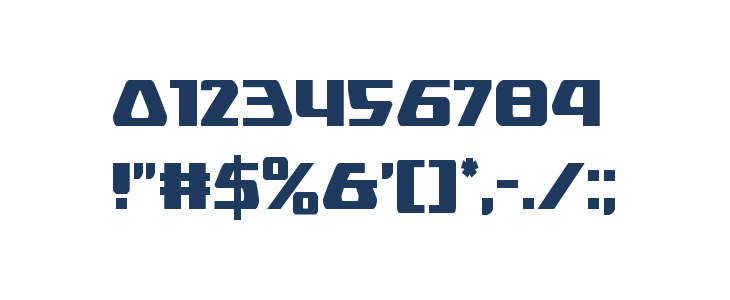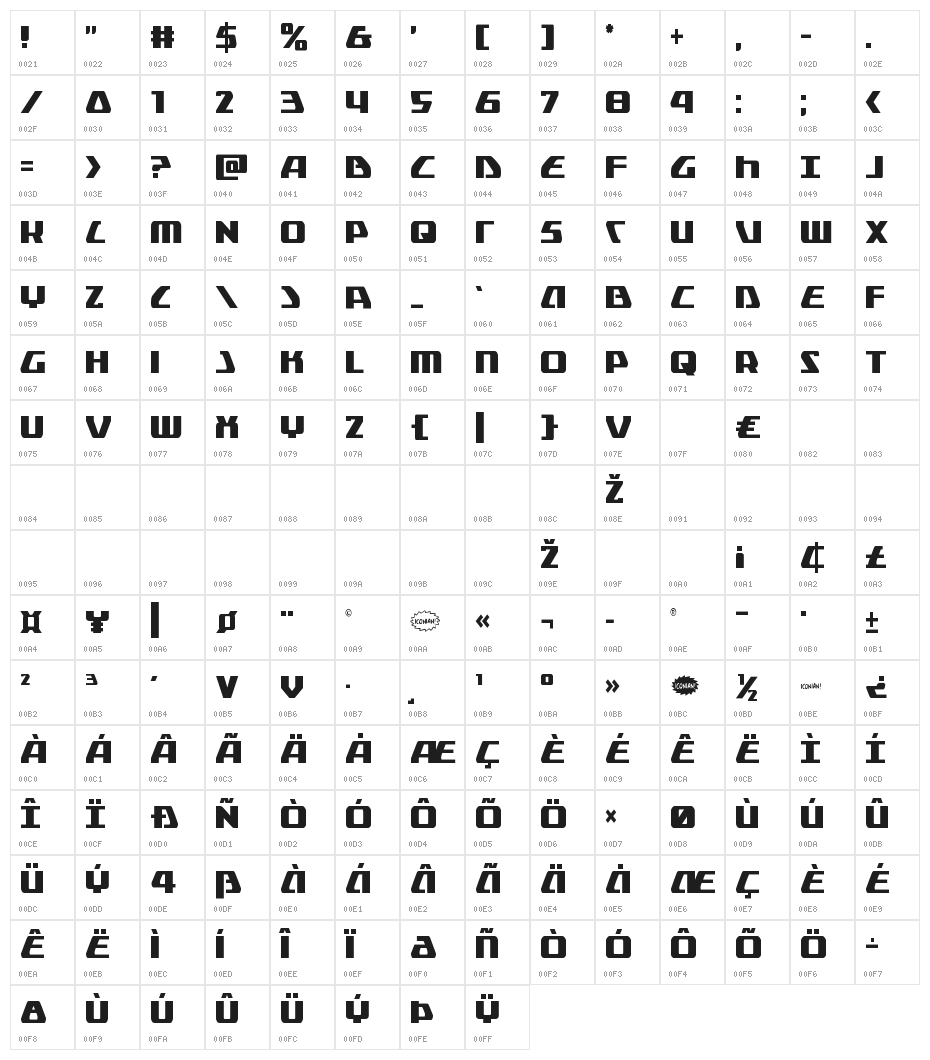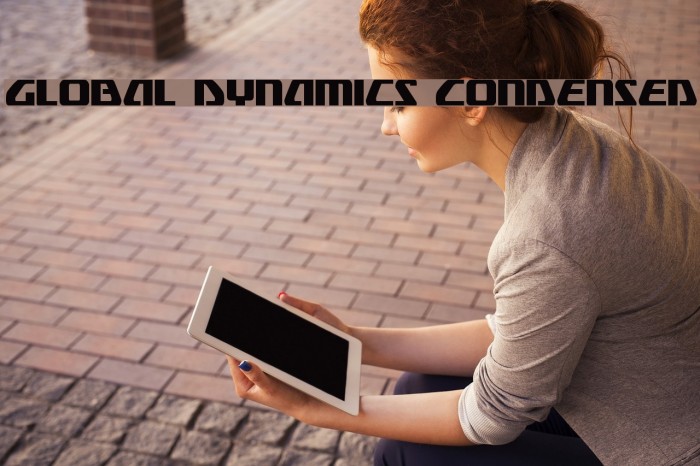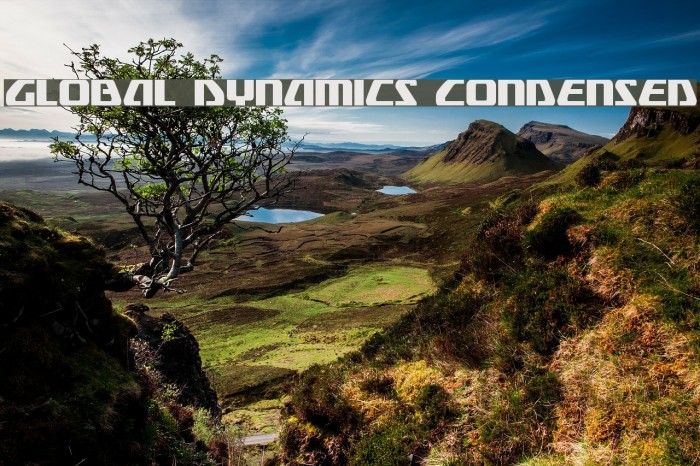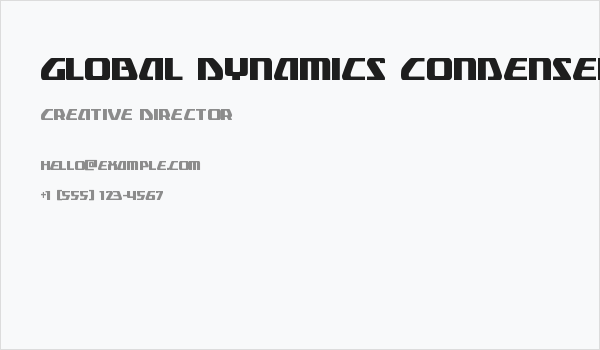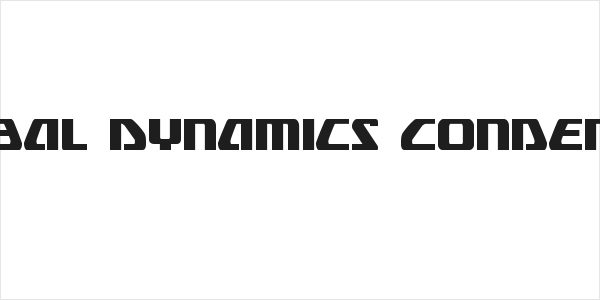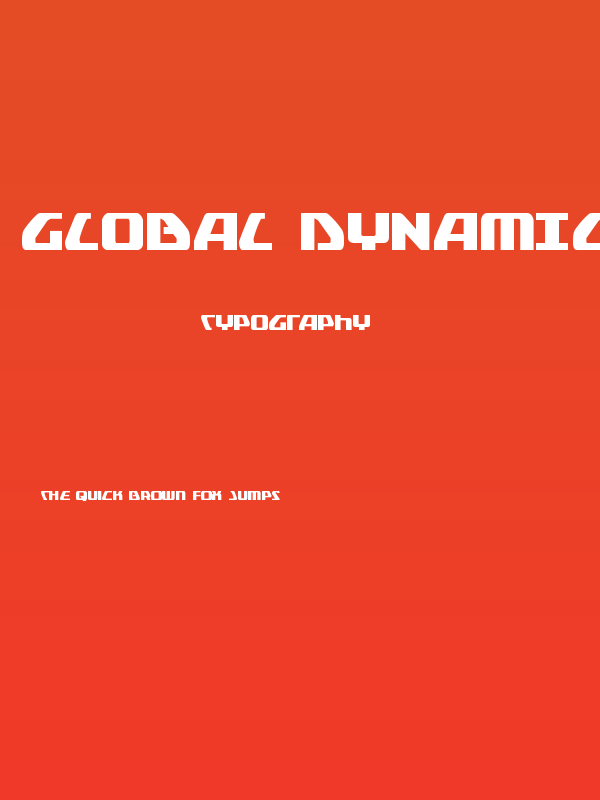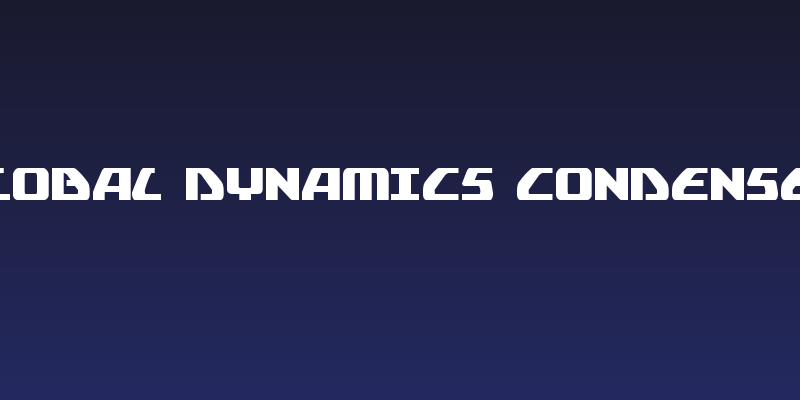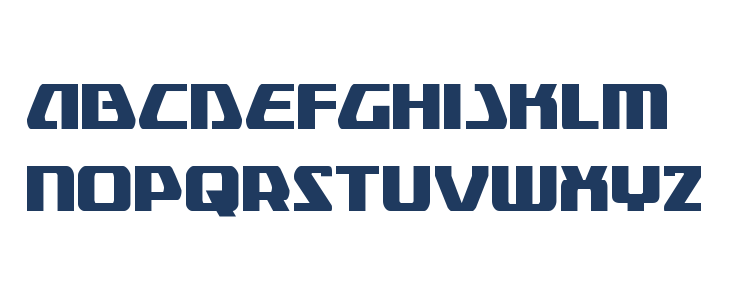
Global Dynamics Condensed Font
Global Dynamics Condensed Description
This font exhibits a bold, futuristic style with a condensed form, characterized by sharp angles and geometric shapes. The uppercase letters are uniform in height, creating a cohesive and structured appearance. The lowercase letters maintain the same angular design, ensuring consistency throughout. Numbers and special characters follow the same design principles, making them easily recognizable and visually aligned with the alphabet. The font's boldness and condensed width make it ideal for impactful headlines and titles. Its modern aesthetic is suitable for technology-related projects, branding, and advertising where a strong, contemporary look is desired.
Use CaseHeadlines, Logos, Branding
Proposed ProjectsIdeal for technology branding, futuristic designs, impactful headlines, and advertising.